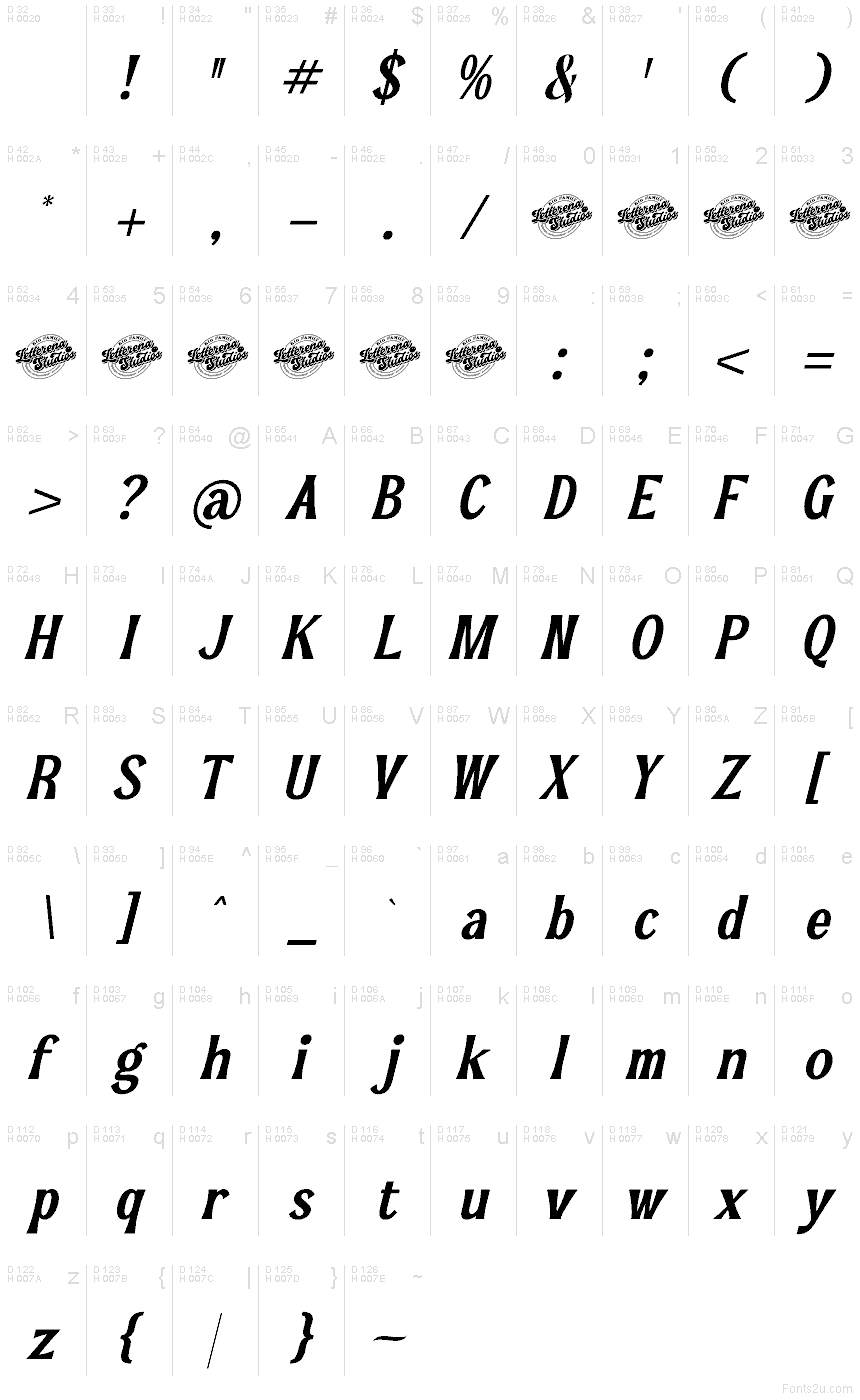
Pearl Hirenha DEMO VERSION Italic
Pearl Hirenha Italic font by Storytype Studio is a retro display typeface that embodies polished elegance and refined sophistication. With its smooth curves, the font achieves a cohesive flow and a formal aesthetic that speaks of both classic elegance and modern refinement. This free font captures a timeless style rooted in classical serif traditions.